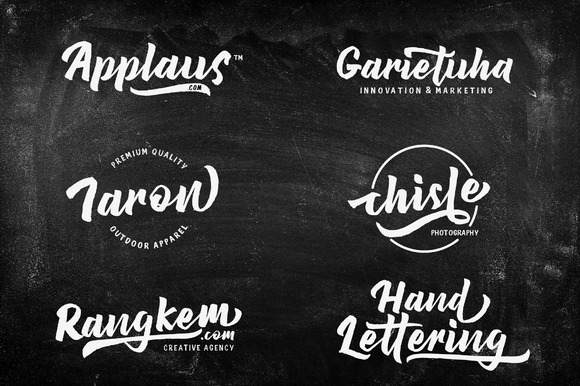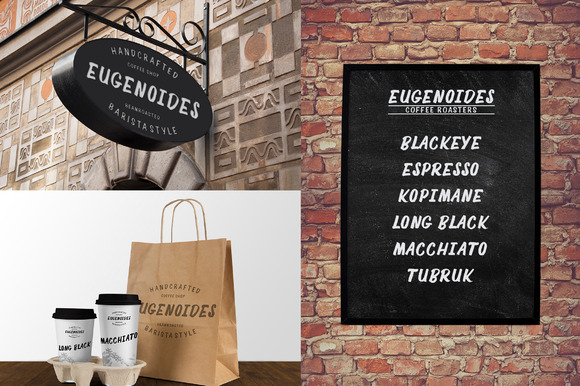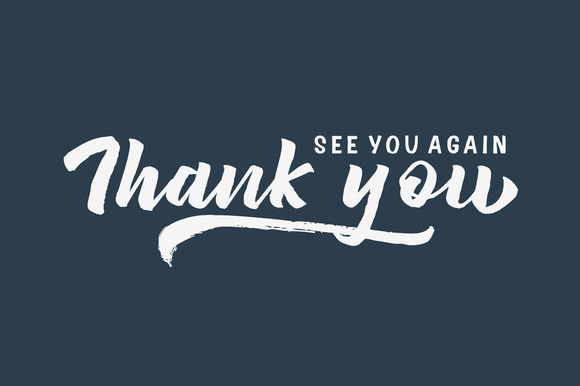
Orlando Font
About Orlando Font
Orlando is a set of 2 hand-made brush fonts, designed to combine perfectly. Orlando allows you to create masterful typographic designs in a flash. Guaranteed to make your text stand out!